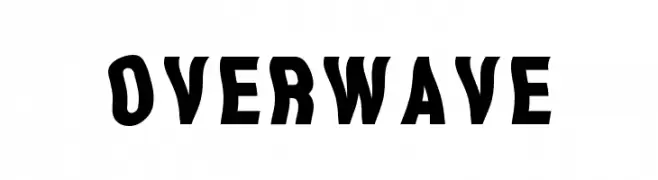
A modern sans-serif font with smooth curves and balanced proportions.
A sleek, modern italic font with smooth curves and clean lines.
A sleek, modern, light italic font with medium contrast and normal spacing.
A dynamic and expressive script font with fluid, interconnected strokes.
A bold, flowing script font with elegant, connected letters.
A playful, hand-drawn font with wavy and dynamic strokes.
A decorative font with intricate, maze-like geometric patterns.
A modern, geometric font with a sleek, condensed style.
A bold, flowing script font with elegant, cursive strokes.
A playful, hand-drawn font with dynamic, irregular strokes.
A whimsical and artistic font with playful, irregular strokes and dynamic characters.
A bold, handwritten-style font with a playful and energetic appearance.
A bold and dynamic brush script font with energetic strokes.
A wavy, decorative font with a fluid, energetic style.
A bold, textured font with a halftone pattern, perfect for vintage or retro designs.
A bold, playful font with rounded, bubbly characters and a retro feel.
A dynamic script font with smooth, flowing lines and a handwritten style.
A bold, decorative font with ocean-themed wave patterns and a 3D effect.
A playful, hand-drawn font with irregular, dynamic letterforms.
A bold, textured font with a distressed, wave-like appearance.
An abstract, waveform-inspired font with a unique, artistic design.
Experimental, abstract font using lines and waves instead of standard glyphs.
A bold, decorative font with a wave-like pattern and 3D shadow effect.
A decorative font with a waveform-inspired design, featuring vertical line textures.